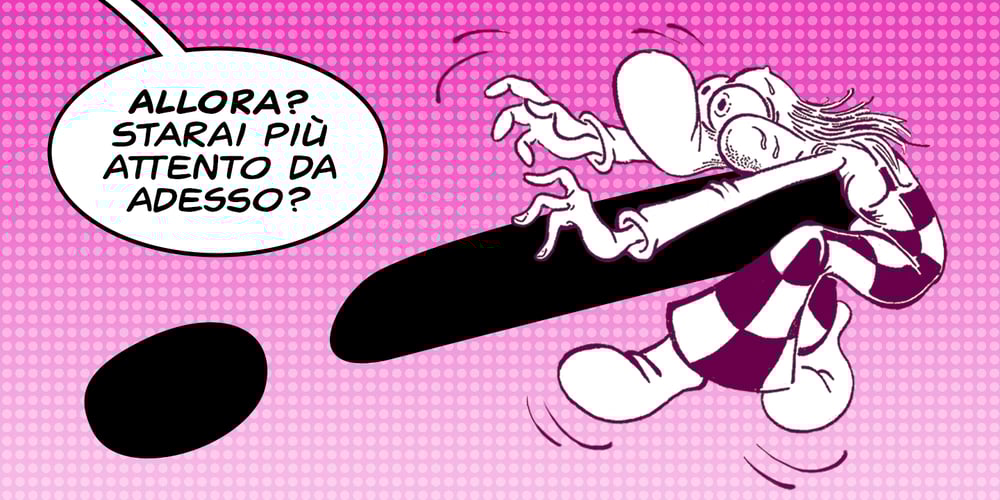
Pugnax
Pugnax font
Pugnax Font Family was designed by Francesco Paolo Lo Galbo and published by Pugnax. Pugnax contains 4 styles and family package options. It is a font suitable for comics, with many ligatures to simulate the “handmade” effect.